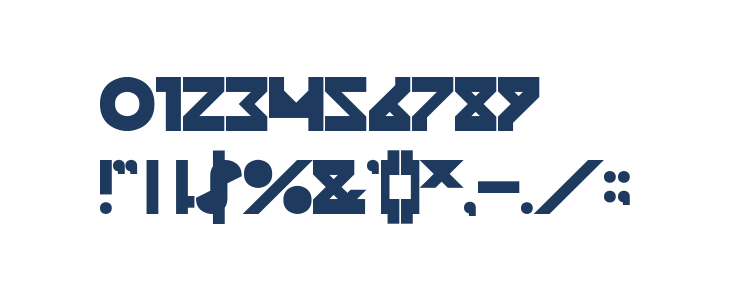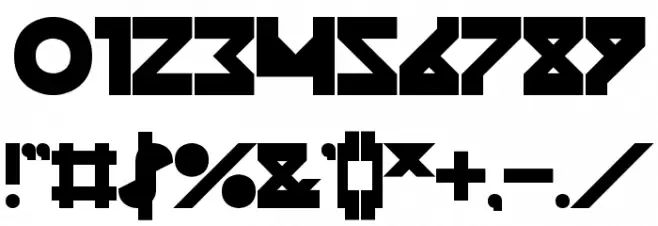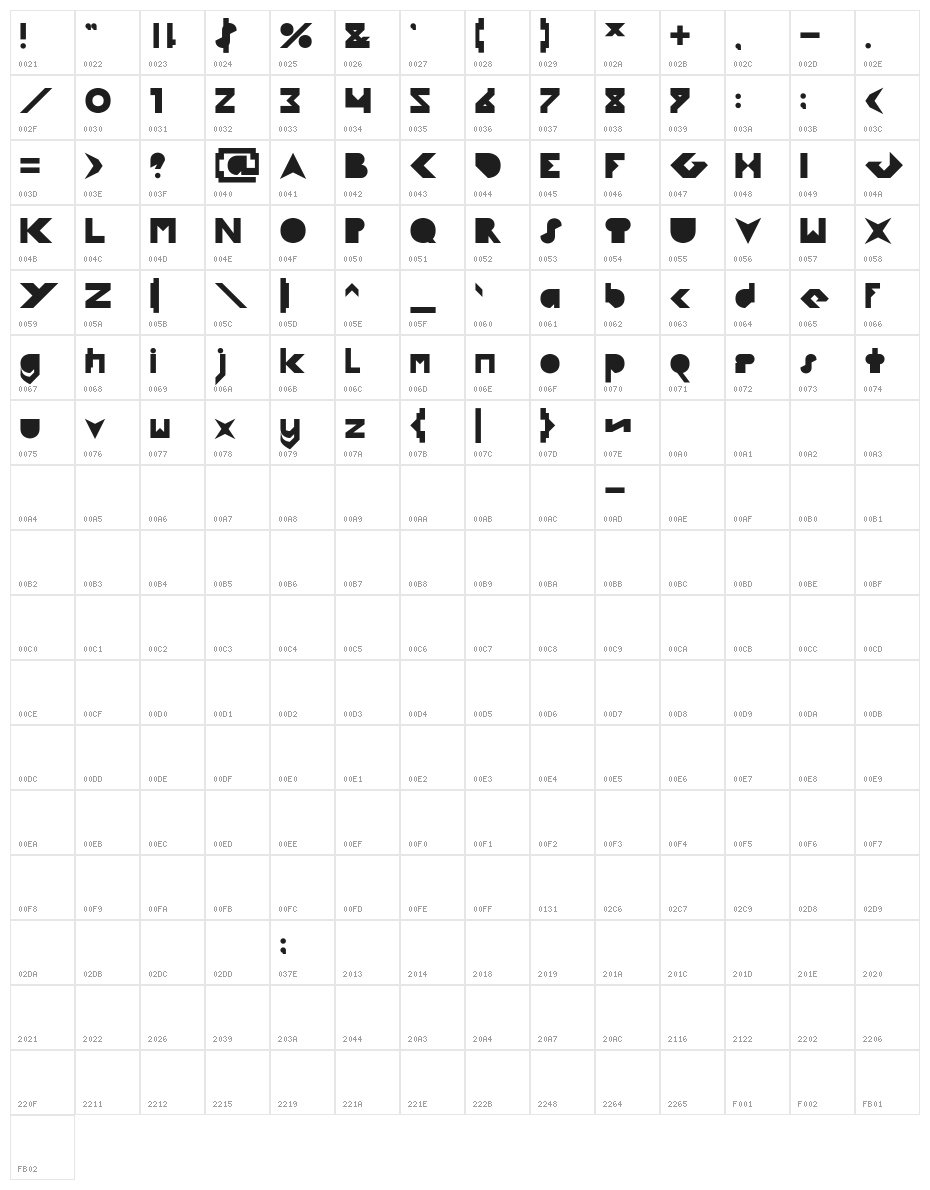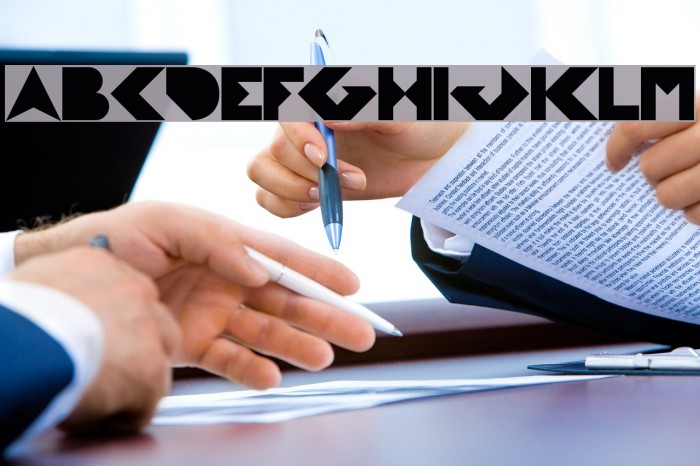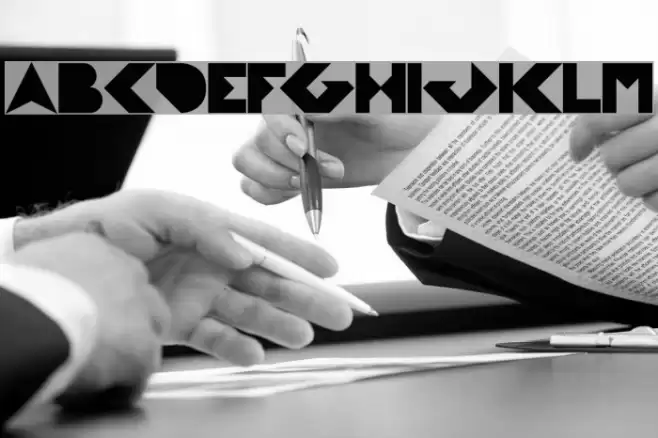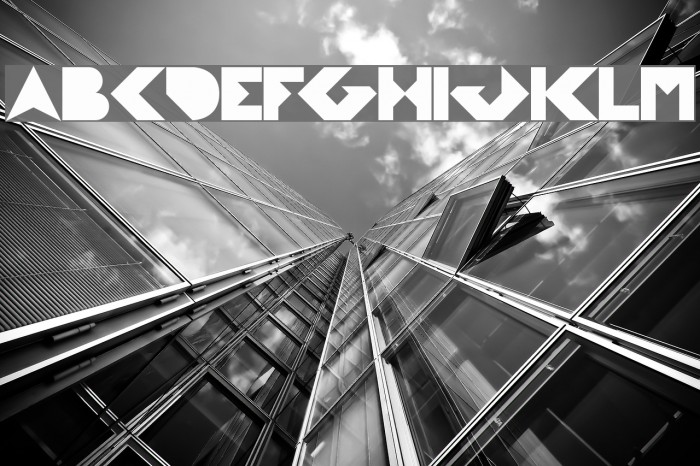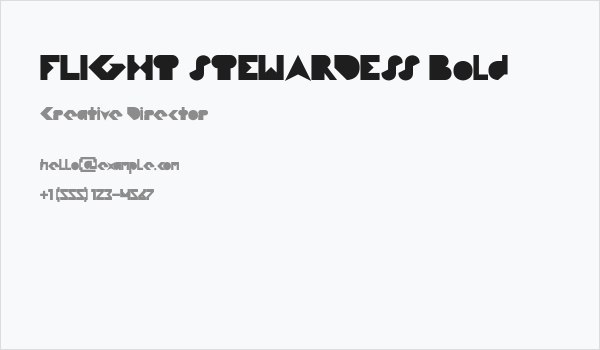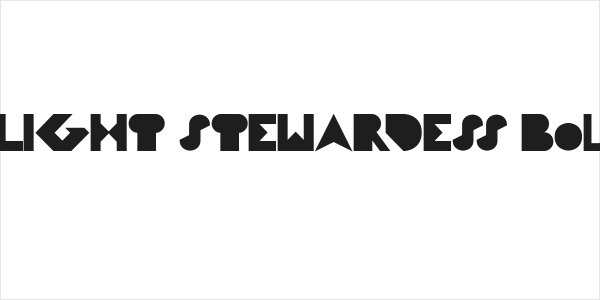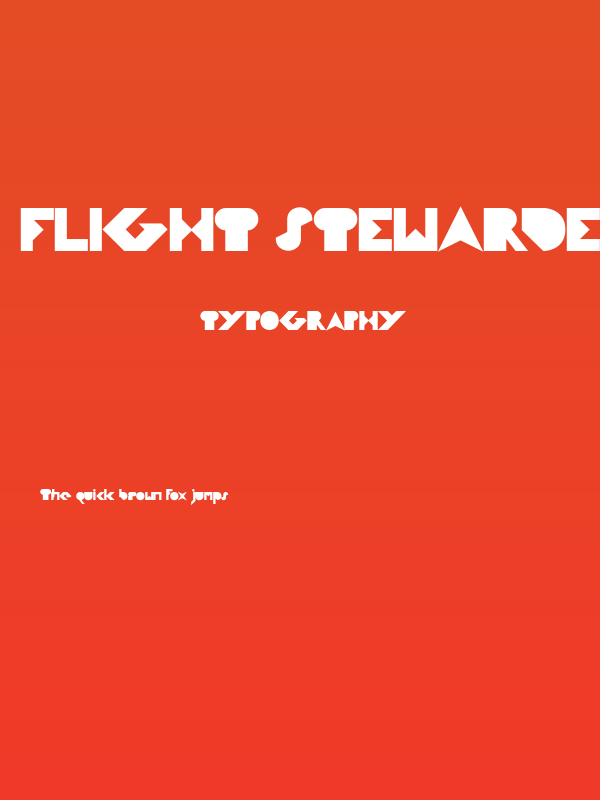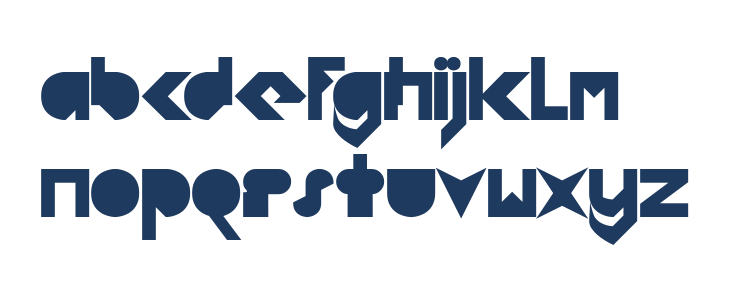
FLIGHT STEWARDESS Bold Font
FLIGHT STEWARDESS Bold Description
This bold and striking font features a highly geometric and angular design, characterized by sharp edges and a futuristic aesthetic. The uppercase and lowercase letters maintain a consistent style, with unique cutouts and shapes that give the font a dynamic and edgy appearance. The numbers and special characters follow the same design principles, ensuring a cohesive look across all characters. The font's boldness and distinct style make it stand out, making it ideal for attention-grabbing designs.
Overall StyleFuturistic, Modern
Proposed ProjectsIdeal for sci-fi themed projects, modern branding, posters, and video game graphics.